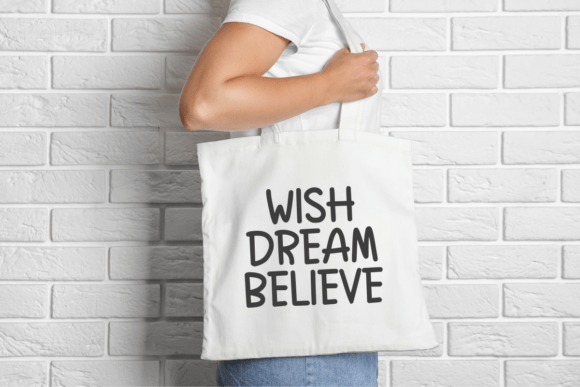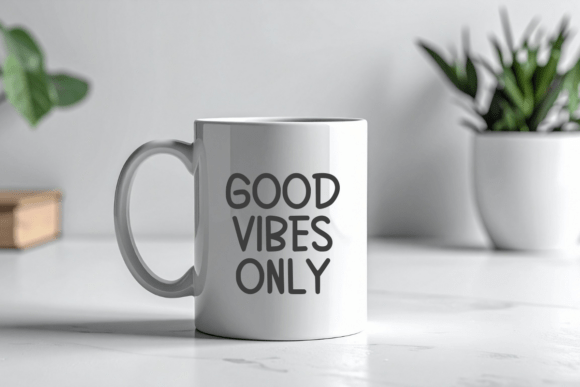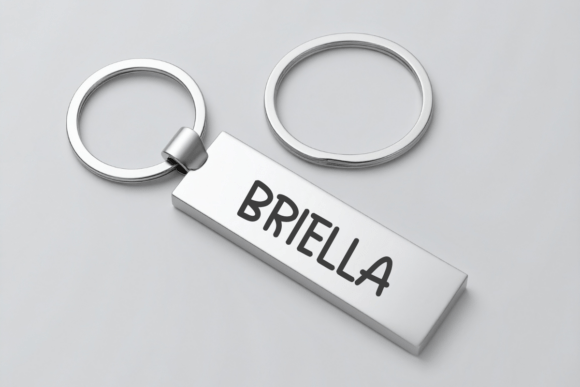
Introduction to Snow Boots Font
As I sat at my craft table, surrounded by colorful papers, scissors, and glue, I was searching for the perfect font to bring my latest DIY project to life. That’s when I stumbled upon the Snow Boots Font – a cute sans serif handwriting font that instantly captured my heart. Its soft, friendly, and natural look was exactly what I needed to add a warm touch to my design. With its high-quality strokes and smooth curves, I knew I had found the perfect design resource for my creative project.
The Snow Boots Font is more than just a pretty face; it’s a valuable resource for designers who love to create playful and engaging designs. Whether you’re working on a craft project, planner, stickers, or kids’ worksheets, this font is sure to bring a smile to your face. Plus, with a transparent background, it’s easy to cut using Cricut and Silhouette, making it a must-have for crafting moms and DIY enthusiasts alike. And the best part? It’s available for free download, making it an accessible and affordable design resource for all.
- Includes 10 unique characters and 20+ glyphs, making it perfect for winter-themed designs, holidays, and festive projects.
- Designed to be versatile and customizable, making it an excellent choice for a wide range of creative projects, from logos to posters.
Honest Review: Snow Boots Font
I recently came across the Snow Boots Font, a design resource that caught my attention due to its unique style. After giving it a try, I’ll share my honest thoughts on its strengths and weaknesses.
- The font’s playful and fun design makes it perfect for creative projects like children’s books, holiday cards, or winter-themed websites.
- The high-quality design is crisp and clear, making it suitable for a variety of uses, from print to digital media.
- The transparent background option provides flexibility when using the font in different design scenarios.
- The font’s limited character set may not be suitable for complex texts or body copy.
- The font’s unique style may not appeal to all designers, and its use may be limited to specific creative projects.
Overall, the Snow Boots Font is a fun and creative design resource that works well for specific projects. While it may have some limitations, its unique style and high-quality design make it a great addition to any designer’s toolkit.
The Snow Boots Font is suitable for a variety of design projects, including holiday-themed designs, winter sports designs, and outdoor-themed designs. You can also use it to create custom titles and headings for your designs.